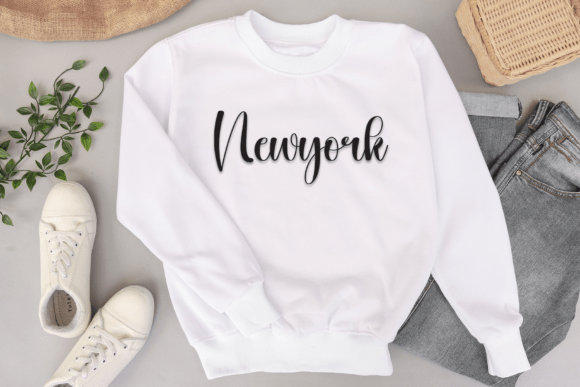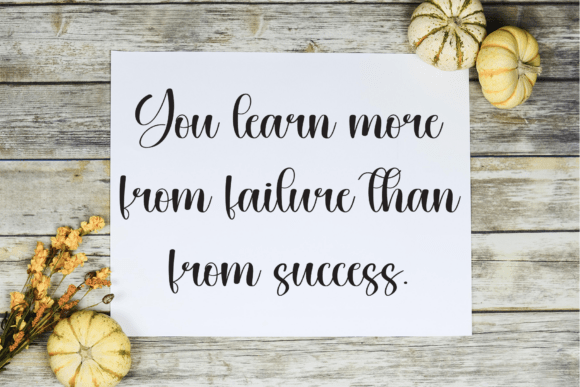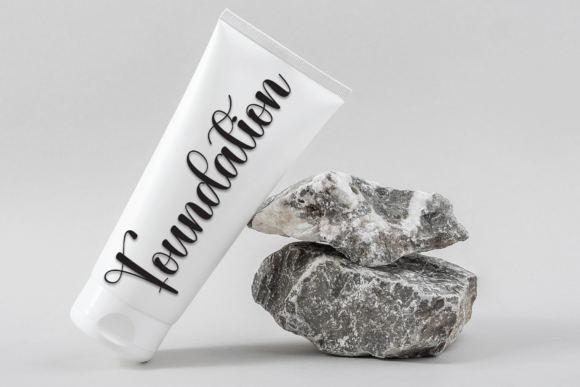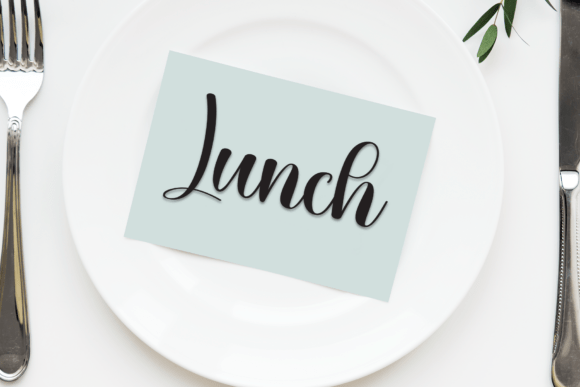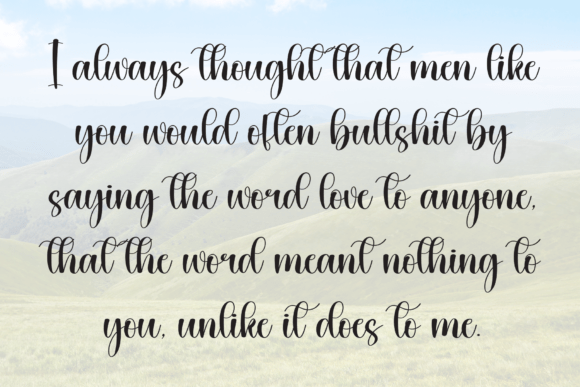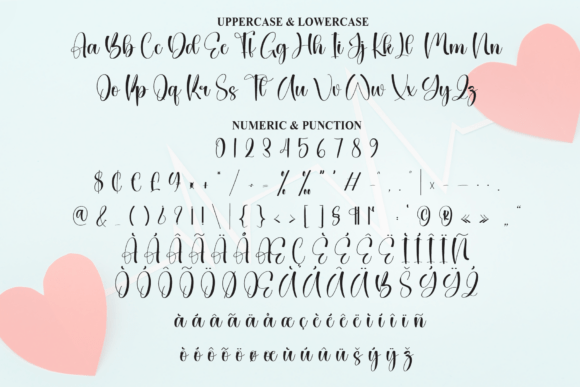
Heartbeat Font: Elevate Your Designs with Fresh Elegance and Delicate Charm
Are you looking for a font that embodies the essence of renewal and sophistication? Look no further than Heartbeat Font, a stylish handwritten script font that radiates fresh elegance and delicate charm. With its flowing strokes and graceful curves, Heartbeat Font is perfect for designers and crafters seeking to add a touch of whimsy and refinement to their projects.
A Fresh Perspective on Handwritten Fonts
Heartbeat Font is more than just a beautiful typeface – it’s an expression of elegance and poise. Its unique blend of flowing strokes and delicate curves creates a sense of movement and fluidity, making it perfect for designs that require a touch of sophistication. Whether you’re working on invitations, branding, or seasonal designs, Heartbeat Font is sure to make your project stand out.
The Perfect Font for Invitations and Branding
Invitations and branding materials require a font that exudes elegance and refinement, and Heartbeat Font delivers. Its soft, personal touch and uplifting feel make it perfect for:
- Branding and packaging designs
- Seasonal greetings and holiday cards
- Social media graphics and quotes
With Heartbeat Font, you can create beautiful, eye-catching designs that capture the essence of your message and leave a lasting impression on your audience.
What Makes Heartbeat Font So Special?
So, what sets Heartbeat Font apart from other handwritten script fonts? Here are just a few features that make it a standout:
- Flowing strokes: Heartbeat Font’s flowing strokes create a sense of movement and fluidity, making it perfect for designs that require a touch of elegance.
- Graceful curves: The font’s gentle curves add a touch of whimsy and playfulness, making it perfect for designs that require a bit of personality.
- Soft, personal touch: Heartbeat Font’s soft, personal touch makes it perfect for designs that require a human touch, such as invitations and branding materials.
- Uplifting feel: The font’s uplifting feel makes it perfect for designs that require a sense of joy and celebration, such as seasonal greetings and holiday cards.
Tips for Using Heartbeat Font in Your Designs
Here are a few tips for getting the most out of Heartbeat Font in your designs:
- Pair it with bold fonts: Heartbeat Font pairs perfectly with bold fonts, creating a beautiful contrast that adds visual interest to your design.
- Use it for headings: Heartbeat Font is perfect for headings and titles, where its flowing strokes and graceful curves can really shine.
- Add some color: Heartbeat Font looks beautiful in a variety of colors, so don’t be afraid to experiment and find the perfect hue for your design.
Heartbeat Font is a stylish handwritten script font that radiates fresh elegance and delicate charm. With its flowing strokes and graceful curves, it’s perfect for designers and crafters seeking to add a touch of whimsy and refinement to their projects. Whether you’re working on invitations, branding, or seasonal designs, Heartbeat Font is sure to make your project stand out. So why wait? Try Heartbeat Font today and see the difference it can make in your designs!